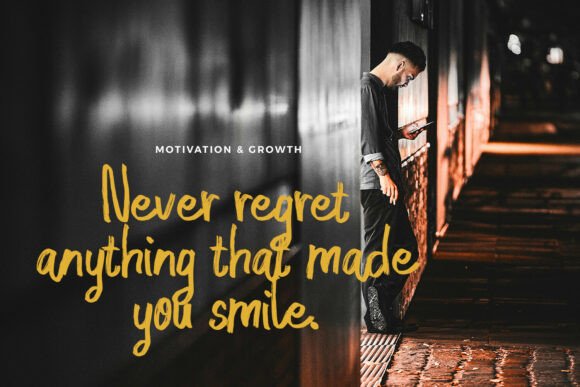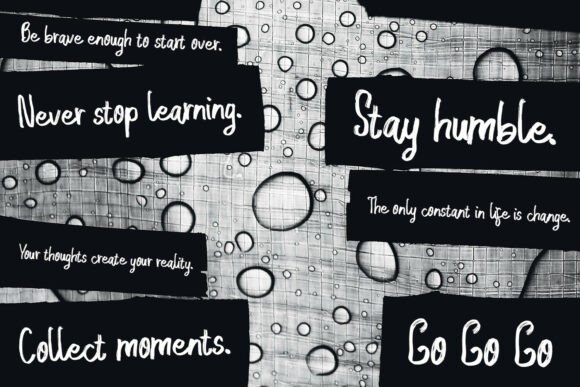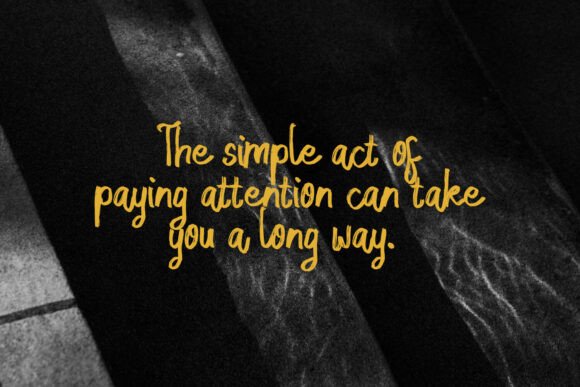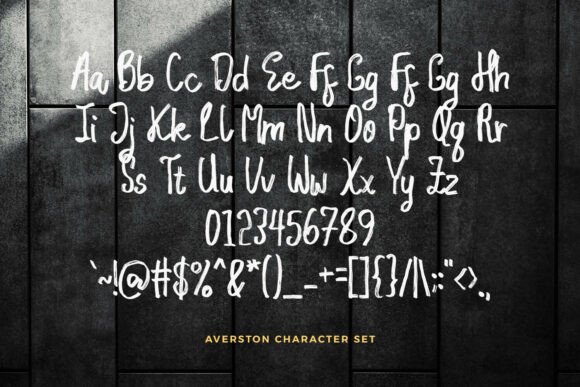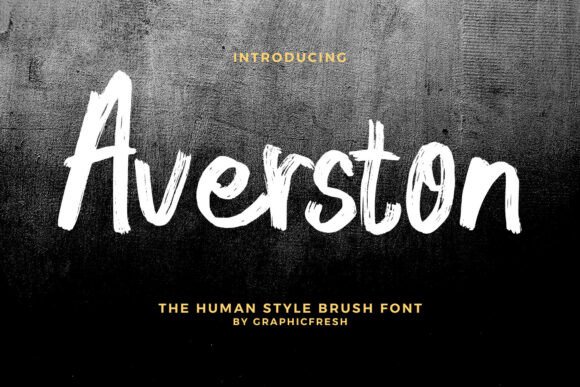
Averstone Font: A Humanistic Brush Font for Creative Expression
In the world of typography, fonts play a crucial role in conveying emotions, tone, and personality. For designers, crafters, and writers, finding the right font can elevate their work from ordinary to extraordinary. Averstone Font is a human-style brush font that has gained popularity for its unique, organic feel and exceptional readability. In this article, we’ll dive into the features, benefits, and uses of Averstone Font, exploring why it’s a must-have for creative professionals.
The Inspiration Behind Averstone Font
Averstone Font is inspired by the natural movement of real handwriting, capturing the essence of human-made lettering. Its creator aimed to craft a font that exudes warmth, personality, and friendliness, while maintaining a confident visual tone. The result is a font that feels approachable, yet sophisticated.
Key Features of Averstone Font
- Organic Brush Strokes: Averstone Font boasts authentic, hand-crafted brush strokes that give it a distinct, human feel.
- Authentic Imperfections: The font incorporates subtle imperfections, making it feel more natural and less machine-made.
- Expressive Flow: Averstone Font has a flowing, dynamic quality that creates a sense of movement and energy.
- Balanced Structure: The font’s balanced structure ensures clear readability, even at smaller sizes.
Benefits of Using Averstone Font
Averstone Font offers several benefits for designers, crafters, and writers:
- Emotional Connection: The font’s humanistic feel helps create an emotional connection with the reader, making it ideal for projects where personality matters.
- Versatility: Averstone Font is suitable for a wide range of projects, from branding and advertising to packaging and digital media.
- Readability: The font’s balanced structure and clear letterforms ensure that text remains readable, even at smaller sizes.
- Uniqueness: Averstone Font’s distinctive, hand-crafted feel sets it apart from more traditional fonts.
Uses of Averstone Font
Averstone Font is a versatile font that can be used in various creative projects:
- Branding and Logo Design: The font’s unique feel makes it perfect for creating memorable brand identities.
- Digital Media: Averstone Font is suitable for social media graphics, blog posts, and website headers.
- Packaging Design: The font’s hand-crafted feel adds a personal touch to product packaging.
- Stationery and Invitations: Averstone Font is ideal for creating personalized stationery, invitations, and greeting cards.
Tips for Using Averstone Font Effectively
To get the most out of Averstone Font, follow these tips:
- Use it as a headline font: Averstone Font shines as a headline font, where its unique feel can make a bold statement.
- Pair it with complementary fonts: Combine Averstone Font with simpler fonts to create visual interest and hierarchy.
- Experiment with colors: The font’s hand-crafted feel lends itself well to creative color schemes and textures.
Averstone Font is a humanistic brush font that offers a unique blend of warmth, personality, and readability. Its organic feel, authentic imperfections, and expressive flow make it an excellent choice for designers, crafters, and writers looking to add a personal touch to their work. With its versatility, emotional connection, and distinctive feel, Averstone Font is sure to become a go-to font in your creative arsenal.